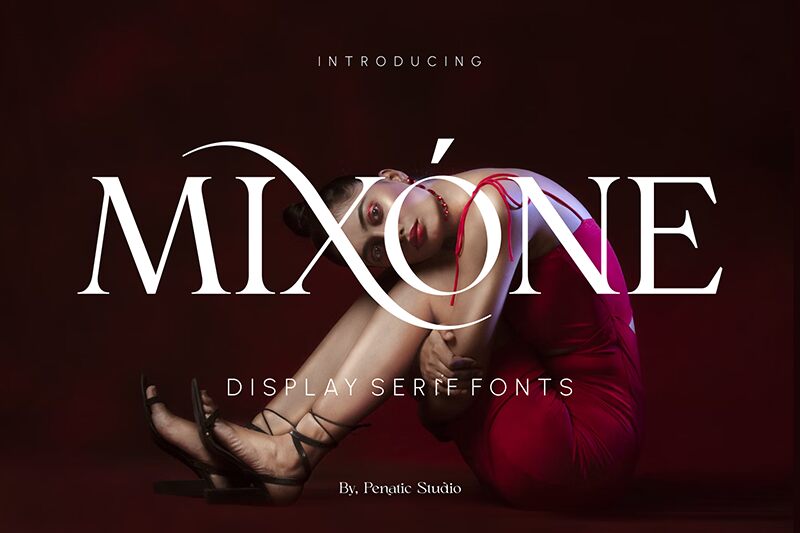
MIXONE
Mixone font is a free serif typeface designed by Penatic Studio. Its classic characters are sophisticated and elegant, and it exudes professionalism in every letter. Present any formal project in its best light with Mixone as its headline to immediately capture your audience’s interest from the first second.
Presentations and packaging design, Mixone can be used for headlines, print projects, or body text with titles appearing on business cards, CVs, magazines (online or printed), and within advertising campaigns.